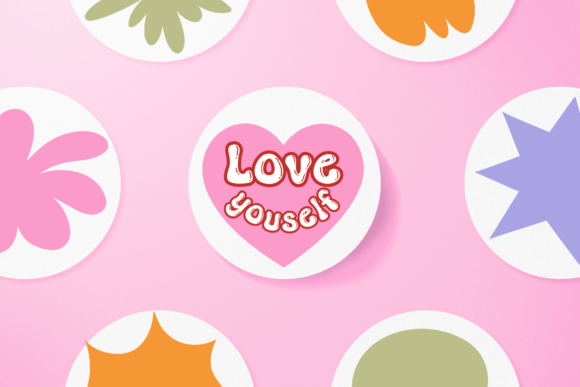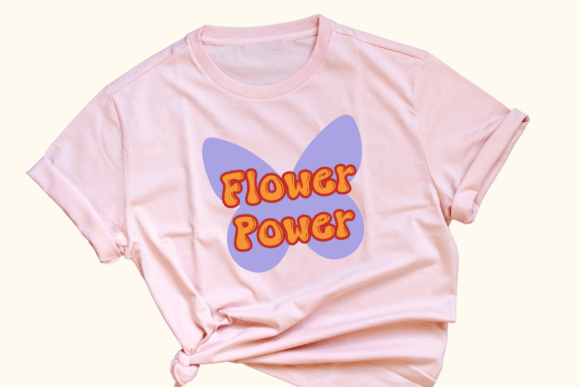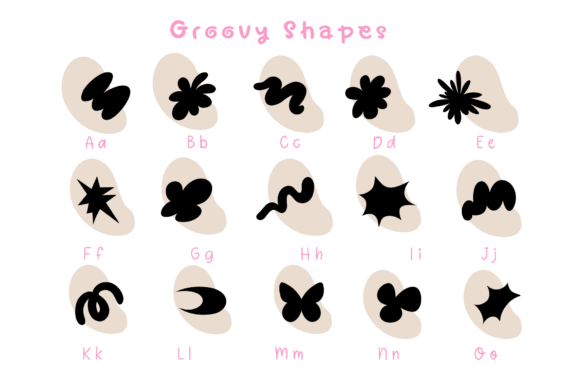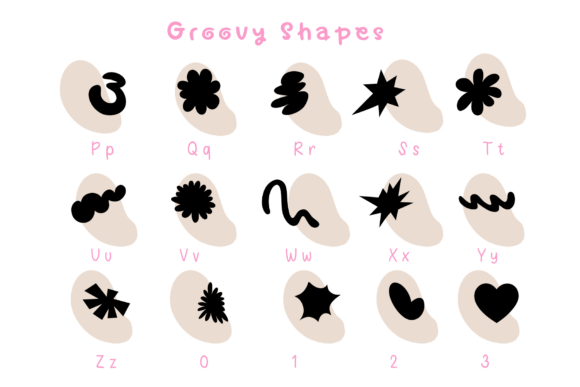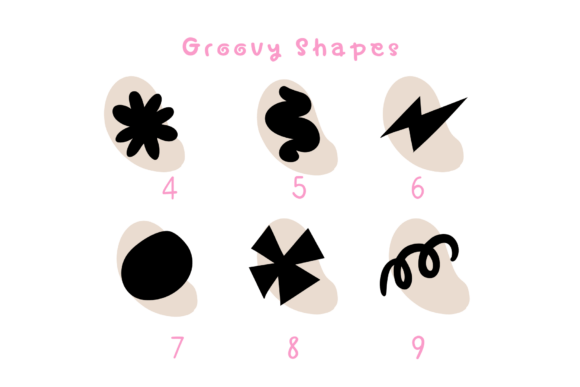
Get Ready to Groove: Unlocking the Power of Groovy Shapes Font
Have you ever been brainstorming a new design project, and suddenly, a burst of creativity hits you? You see shapes, colors, and patterns dancing in your head, and you know exactly what you want to create. For designers like you, the right font can be the spark that sets off a chain reaction of innovative ideas. That’s where the Groovy Shapes Font comes in – a game-changing tool designed to fuel your creativity and bring your retro-inspired designs to life.
This fabulous font is more than just a collection of shapes; it’s a treasure trove of inspiration waiting to be unleashed. With its extensive library of shapes and ready-made graphics, the Groovy Shapes Font is perfect for crafting unique branding projects, stickers, apparel artwork, and so much more. Whether you’re a seasoned designer or just starting out, this font is sure to become your new best friend in the world of design.
Groovy Shapes Font Key Features
- Unique Characteristics: Groovy Shapes Font features a distinctive, hand-drawn style with intricate shapes and lines, giving it a playful and whimsical feel.
- Character Set: The font includes a comprehensive character set, including uppercase and lowercase letters, numerals, punctuation marks, and special characters.
Groovy Shapes Font Review
Overall, I think the Groovy Shapes Font is a unique and fun addition to any design project. Here are some things that really work well: ✨
- Playful vibe: The font’s retro-inspired design gives it a carefree, playful feel that’s perfect for creative projects or branding for fun businesses.
- Versatility: The font comes in a range of weights and styles, making it easy to use in a variety of contexts, from headlines to body text.
- Customization options: The font’s makers have included a range of customization options, allowing designers to tweak the font to fit their specific needs.
That being said, there are a few limitations to consider: ⚠️
- Readability: In some cases, the font’s playful design can make it difficult to read, particularly in smaller sizes or when used for large blocks of text.
- Lack of sophistication: While the font is great for fun projects, it may not be the best choice for more formal or professional designs.
Overall, I think the Groovy Shapes Font is a great choice for designers looking to add some personality to their projects. While it may not be the most versatile or readable font, it’s a fun and unique option that’s sure to stand out.
Getting the Most Out of Groovy Shapes Font
For optimal results, use the Groovy Shapes Font in bold or italic styles to add visual interest.
The Groovy Shapes Font is perfect for:
- Designing children’s party invitations or decorations.
- Creating eye-catching social media graphics.
- Adding a playful touch to presentations or documents.